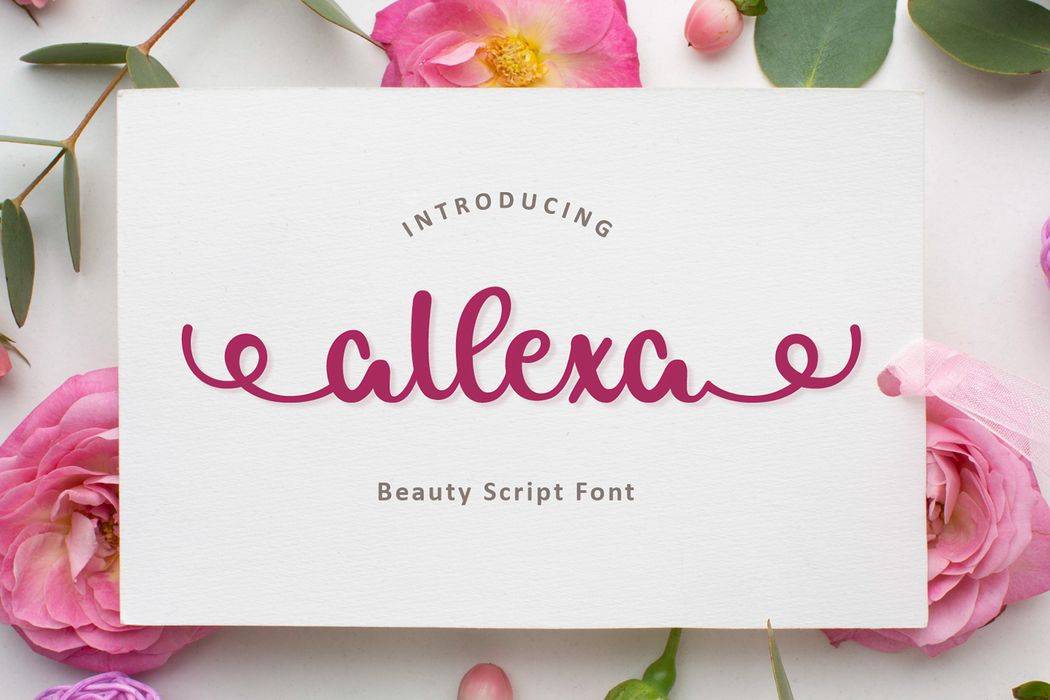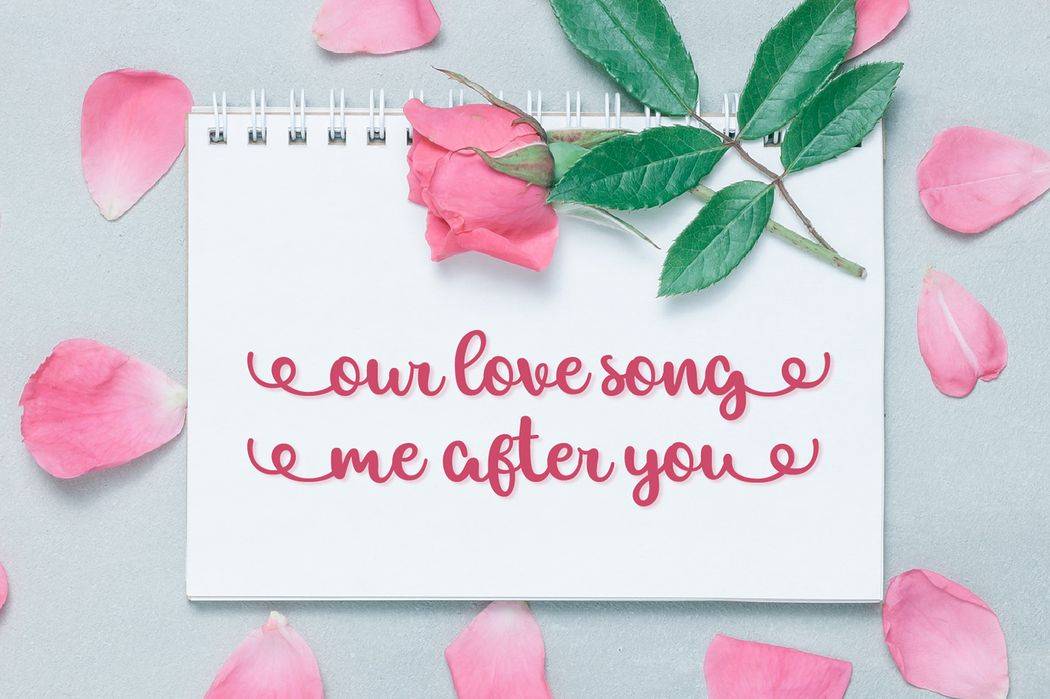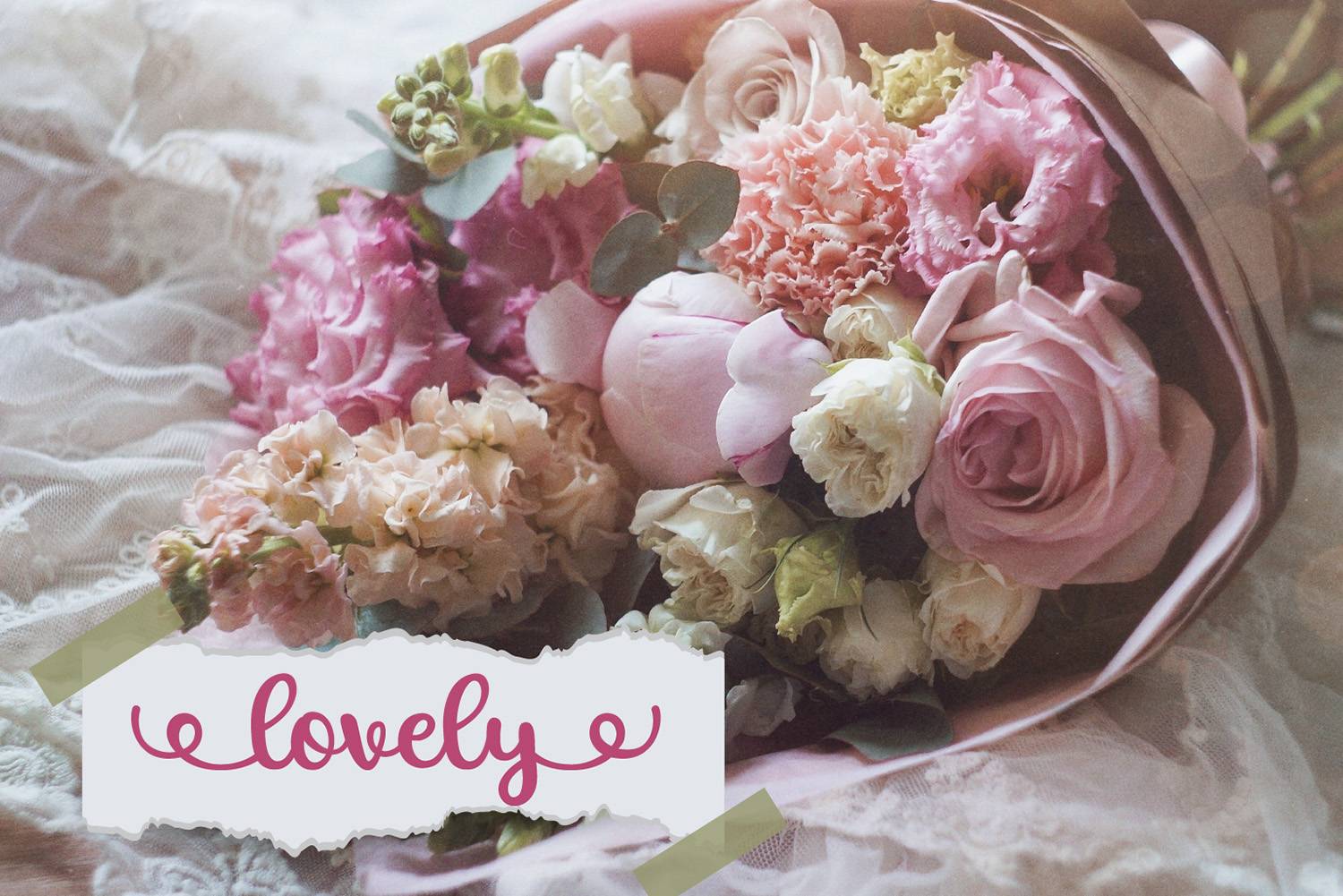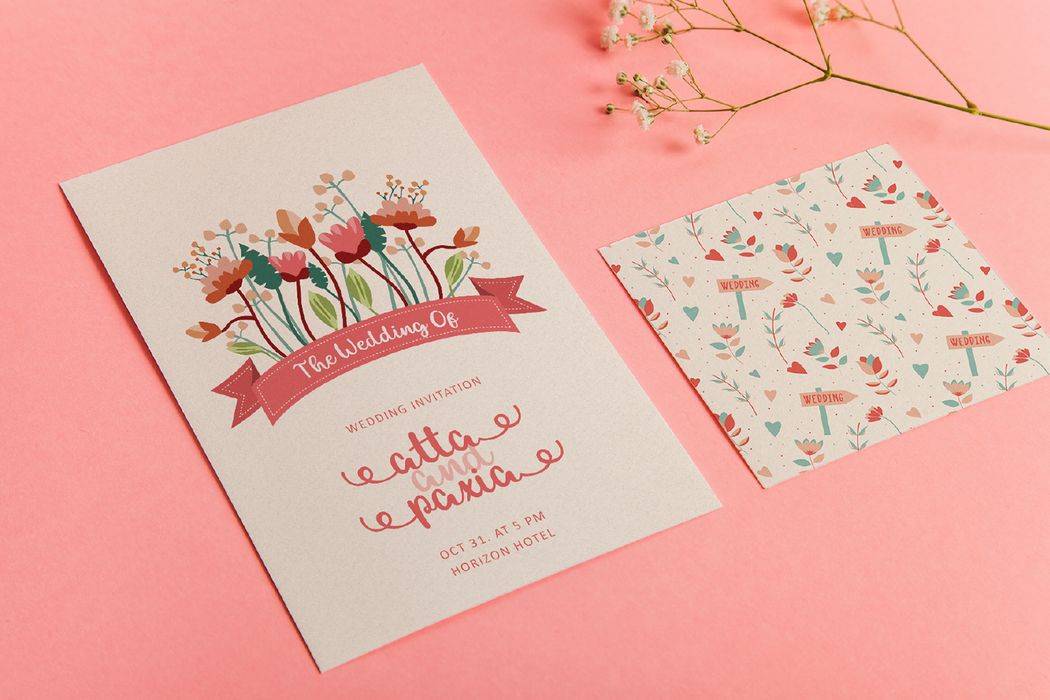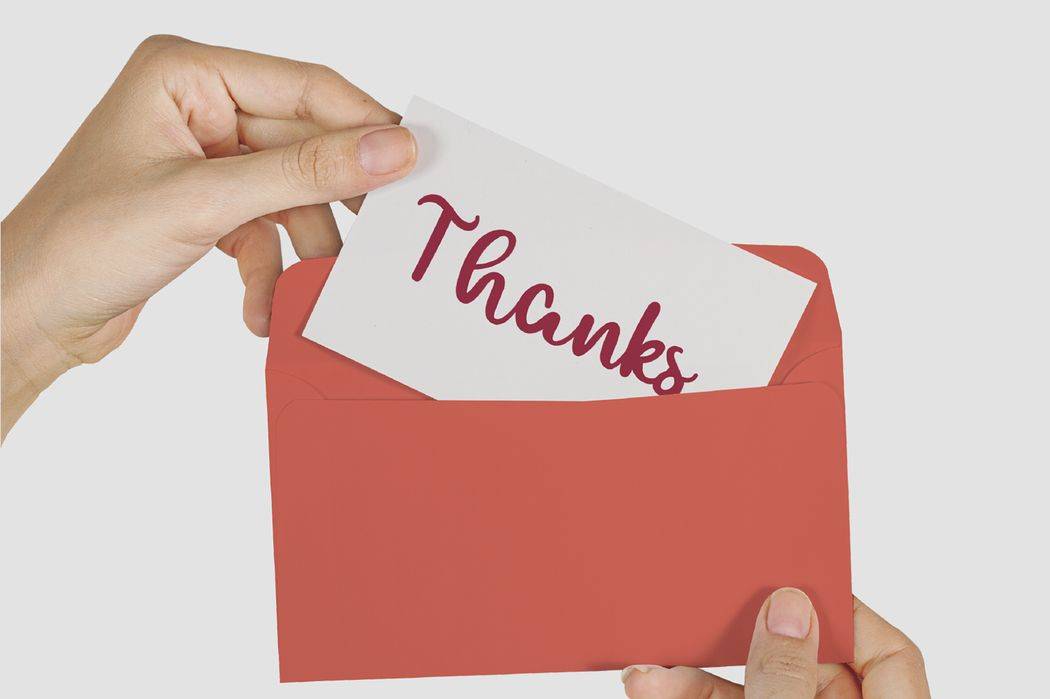
Allexa is a charming script font with a playful yet elegant personality, featuring smooth, flowing strokes and a handwritten feel. Its medium weight and moderate contrast give it a friendly, approachable look, making it ideal for creative branding, invitations, and casual editorial projects. This font works well in both headlines and short texts where a touch of warmth and personality is desired.
Allexa Font
About Allexa Font
| Font family | Allexa Font |